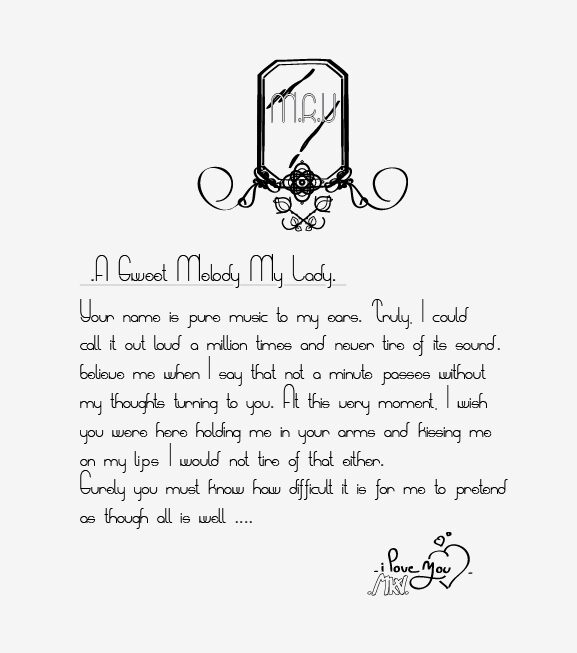
A Sweet Melody My Lady by Maelle.K is a free retro display font with extremely tall, rounded letters and a fine monoline stroke. Narrow arches repeat from letter to letter, giving the design a 1960s-inspired fashion silhouette. Small crossbars and open joins keep the construction airy.
A boutique poster is its clearest setting. The slim curves also suit beauty packaging, fashion branding, and music artwork with a vintage direction. In event graphics, the letters can become a continuous line motif that links wording with borders or illustrated flourishes.